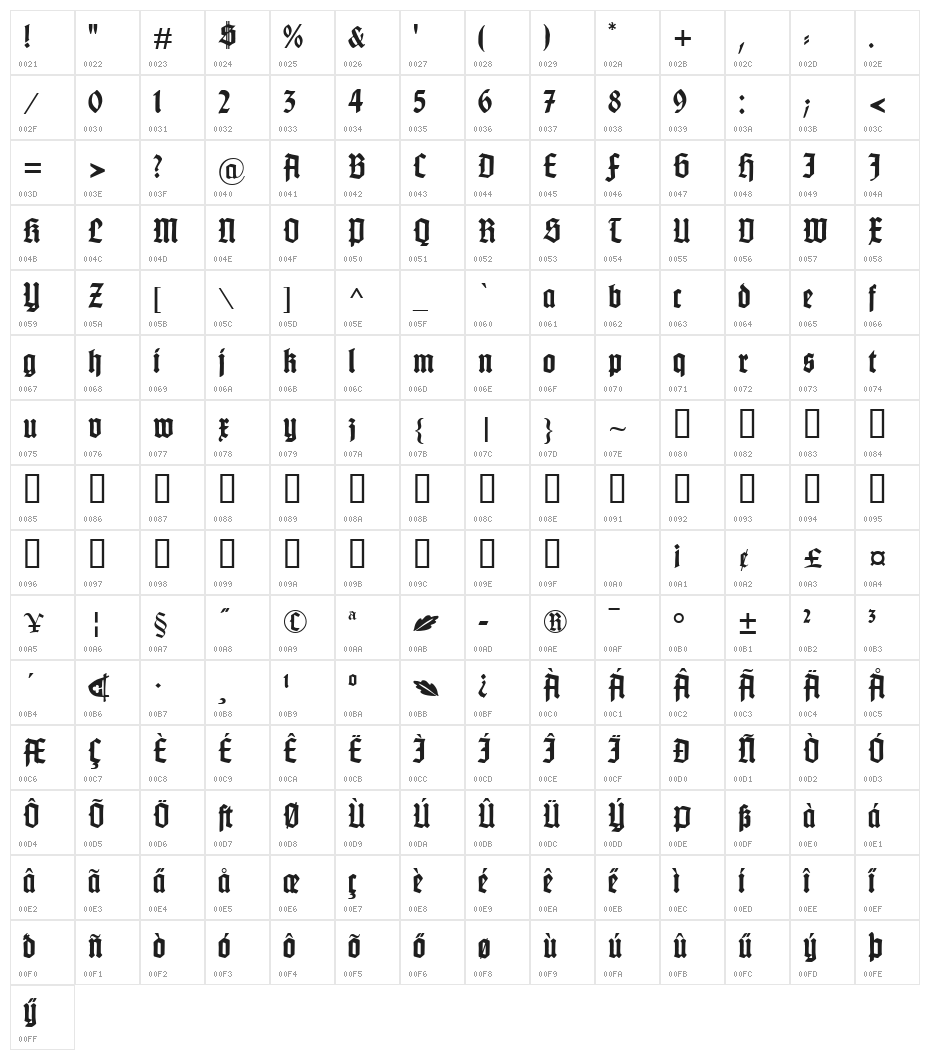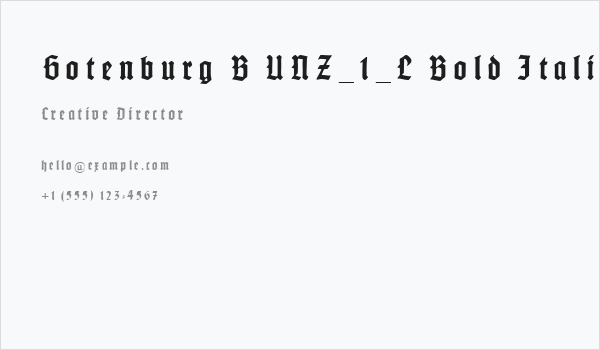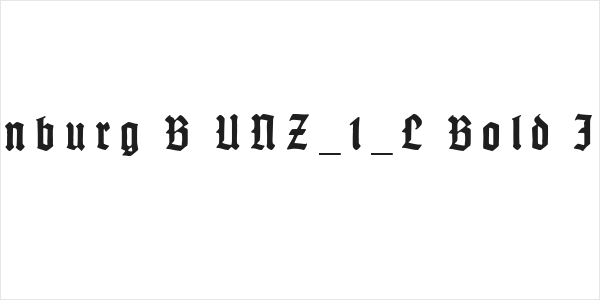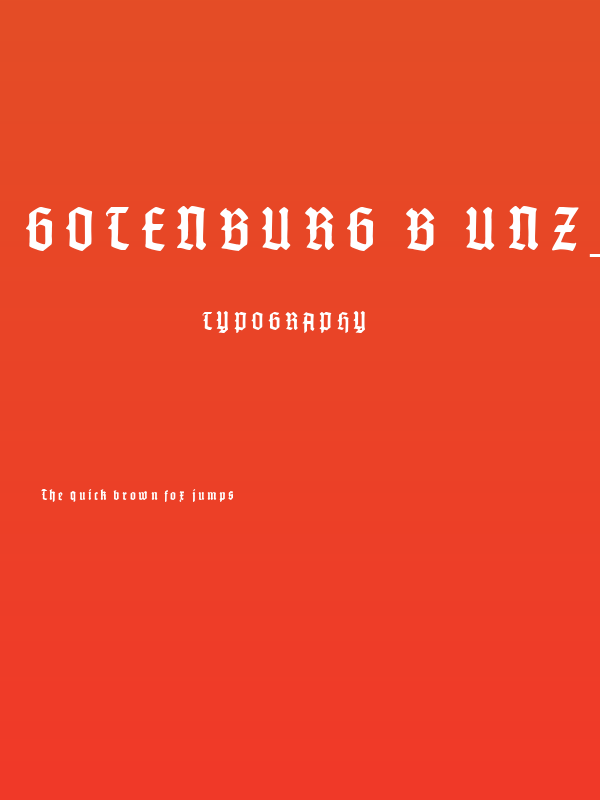
Gotenburg B UNZ_1_L Bold Italic Font
Gotenburg B UNZ_1_L Bold Italic Description
This font embodies a traditional Blackletter style, characterized by its bold and angular strokes. The uppercase letters exhibit a strong, authoritative presence with sharp edges and intricate detailing, reminiscent of medieval script. The lowercase letters maintain the same boldness, with a slightly more fluid connection between strokes, adding a touch of elegance. Numbers and special characters are crafted with the same attention to detail, ensuring consistency across the entire typeface. The overall design is both decorative and functional, making it suitable for projects that require a historical or gothic aesthetic.
| Overall Style | Gothic, Decorative |
| Use Case | Headlines, Logos, Decorative text |
| Proposed Projects | Ideal for historical documents, gothic-themed designs, book covers, posters, and branding that requires a medieval touch. |